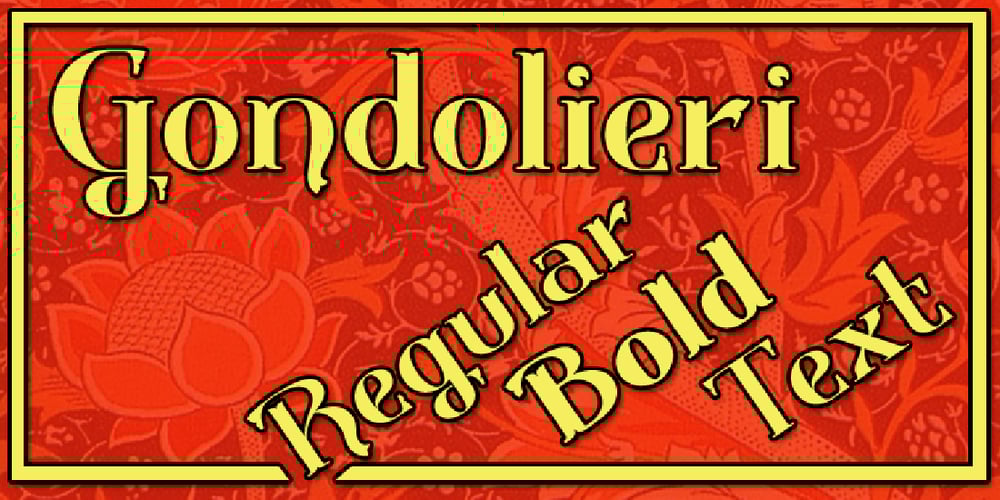
Gondolieri Font Family was designed by Paul James Lloyd and published by Greater Albion Typefounders. Gondolieri contains 9 styles and family package options. The design of Gondolieri has its origins in an experiment to combine aspects of Didone and Tuscan typefaces. The result has a continental ‘Italianate’ feel. If you wonder what lies behind the name, just look at the lower case ‘f’…definite overtones of a Venetian Gondola here, and throughout the design. Gondolieri is offered in regular and bold weights, as well as a simplified form for smaller text use. All of these are available in three widths. The Gondolieri family has a lovely Didone, ‘Belle Epoch’ feel for use in design, posters, book covers and so forth. An extensive range of Opentype features, including ligatures and terminal forms is included in the regular and bold faces.